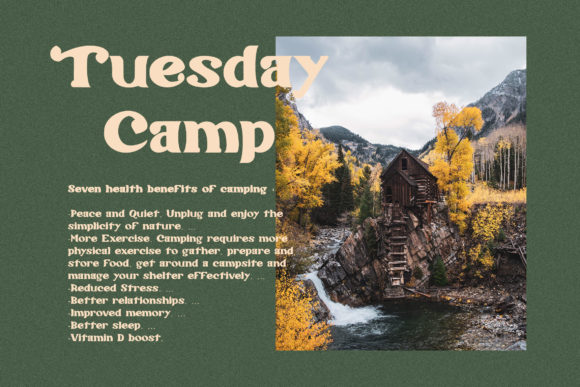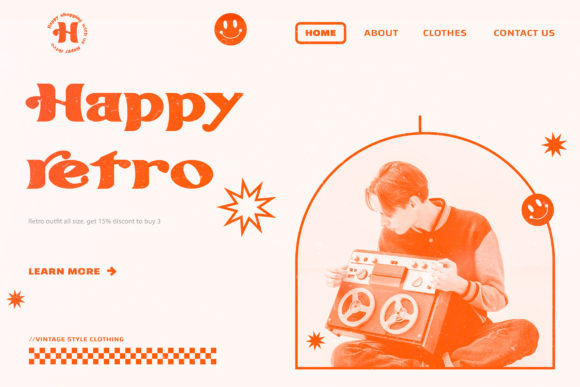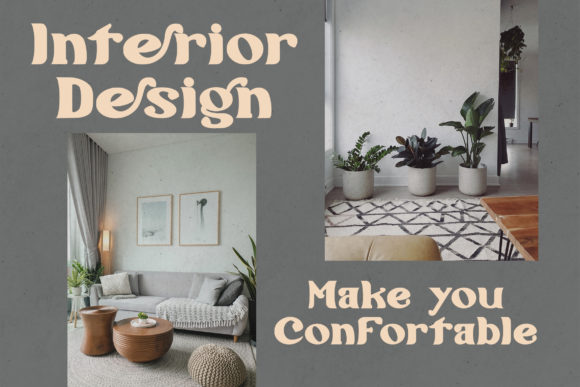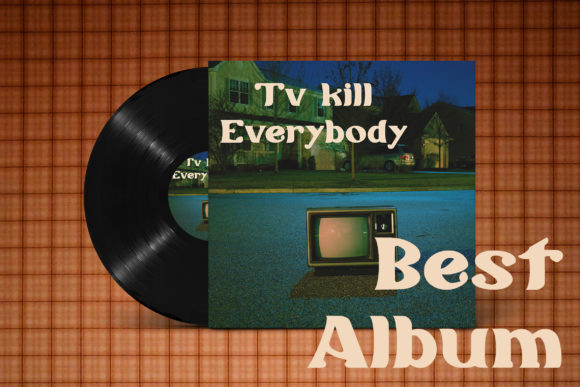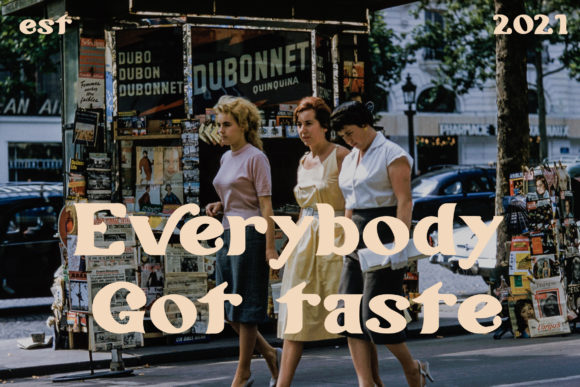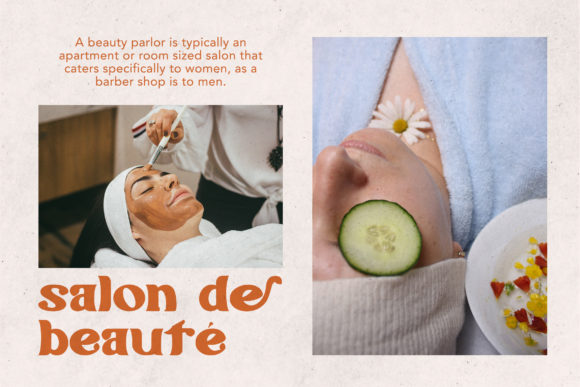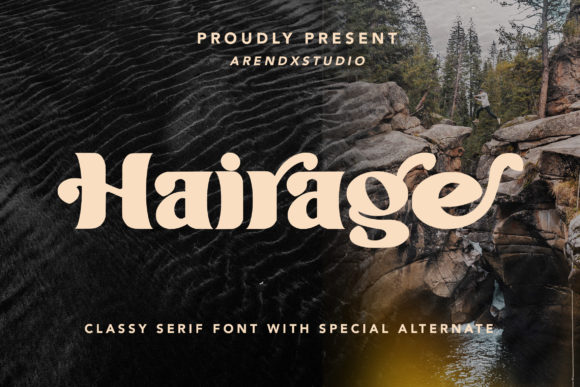
Introducing Hairage Font: A Timeless Classic for Bold Creations
In the world of typography, fonts play a crucial role in conveying the tone and personality of a design. For designers and crafters looking to add a touch of sophistication and uniqueness to their creations, Hairage Font is an excellent choice. This cool, bold, and classic serif font is imposing, featuring uniquely shaped letters that can easily match a wide range of projects requiring a distinct touch.
The Characteristics of Hairage Font
Hairage Font boasts a classic serif design with a bold and imposing presence. Its unique lettering style sets it apart from other fonts, making it perfect for designers who want to add a touch of elegance and sophistication to their work. The font’s serif features are carefully crafted to provide a sense of tradition and timelessness, while its boldness ensures that it remains attention-grabbing and impactful.
What Makes Hairage Font Stand Out
So, what makes Hairage Font stand out from other fonts in the market? Here are a few key features that make it a top choice for designers and crafters:
• Unique Lettering Style: Hairage Font features uniquely shaped letters that are carefully crafted to provide a distinctive look and feel.
• Bold and Imposing Presence: The font’s boldness ensures that it remains attention-grabbing and impactful, making it perfect for headlines, titles, and other prominent design elements.
• Classic Serif Design: Hairage Font’s classic serif design provides a sense of tradition and timelessness, making it suitable for a wide range of projects, from luxury brands to creative designs.
• Versatility: The font’s versatility ensures that it can be used in a variety of contexts, from print materials to digital designs.
How to Use Hairage Font in Your Designs
Hairage Font is an excellent choice for a wide range of design projects, including:
• Logos and Branding: The font’s bold and imposing presence makes it perfect for logos and branding materials that require a strong and distinctive look.
• Headlines and Titles: Hairage Font’s unique lettering style and boldness make it an excellent choice for headlines and titles that need to grab attention.
• Print Materials: The font’s classic serif design and boldness ensure that it remains legible and impactful in print materials, such as brochures, posters, and business cards.
• Digital Designs: Hairage Font’s versatility ensures that it can be used in digital designs, such as website headers, social media graphics, and email marketing materials.
Tips for Getting the Most Out of Hairage Font
To get the most out of Hairage Font, here are a few tips to keep in mind:
• Experiment with Font Sizes: Hairage Font’s boldness ensures that it remains legible at a variety of font sizes, so don’t be afraid to experiment with different sizes to find the one that works best for your design.
• Pair it with Other Fonts: Hairage Font’s classic serif design makes it an excellent choice for pairing with other fonts, such as sans-serif fonts or script fonts.
• Use it for Emphasis: The font’s boldness and unique lettering style make it perfect for use in emphasis, such as headings, subheadings, and call-to-actions.
Hairage Font is a timeless classic that offers a unique blend of boldness, elegance, and sophistication. Its classic serif design, unique lettering style, and versatility make it an excellent choice for a wide range of design projects. Whether you’re a designer or crafter looking to add a touch of distinction to your work, Hairage Font is an excellent choice. So why not give it a try and see how it can elevate your designs to the next level?